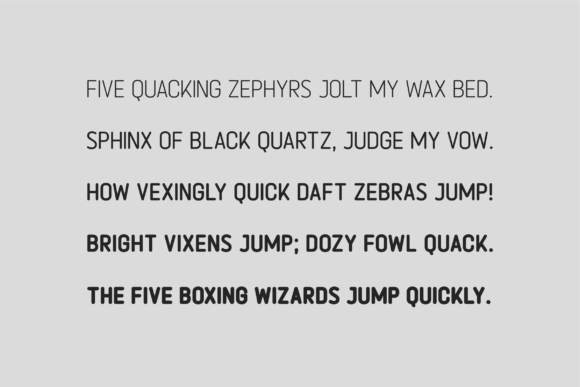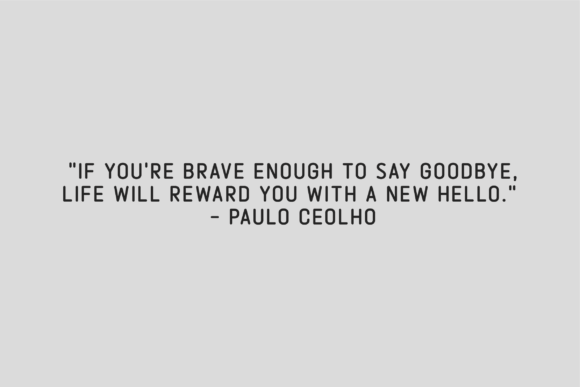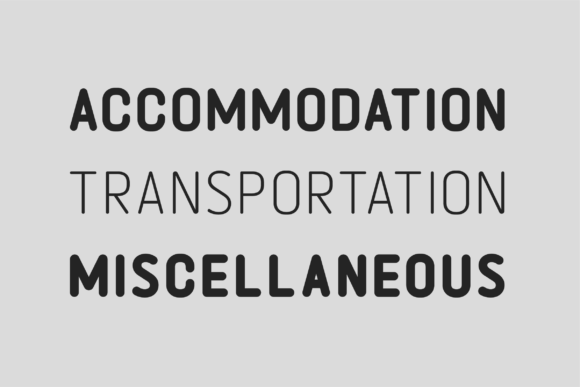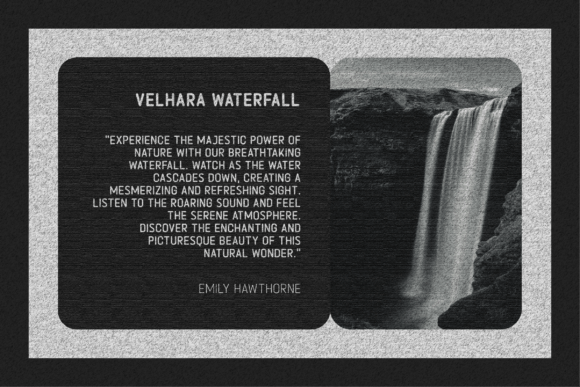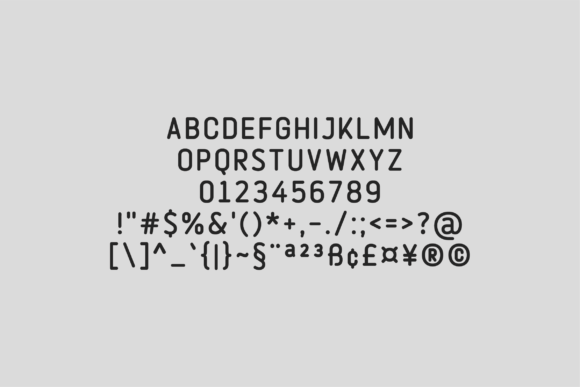
Introduction to Shelution Rounded Font
Have you ever stared at a blank canvas, trying to bring your creative vision to life? The blank page can be intimidating, but what if you had the perfect tool to give your project the boost it needs? For designers, finding the right font can make all the difference between a mediocre and a breathtaking design. That’s where Shelution Rounded Font comes in – an exquisite sans serif font that’s about to revolutionize your creative project.
With its perfect balance of sophistication and simplicity, Shelution Rounded Font is the ultimate design resource for any project. Whether you’re working on a high-quality magazine, a logo, or a film poster, this font is sure to elevate your design to new heights. And the best part? It’s available for a free download, allowing you to experiment with it and see the magic happen. So why settle for an ordinary font when you can have a Shelution Rounded Font with a transparent background that adds an extra layer of depth to your design?
Key Features of Shelution Rounded Font
- High-quality design resource for creative projects, ideal for logos, typography, and branding.
- Unique rounded design with a transparent background, allowing for easy customization and layering.
- Perfect for designers and artists looking for a modern, sleek, and sophisticated font to elevate their creative project.
- Can be used as a standalone font or combined with other design elements to create a visually appealing design resource.
Honest Review: Shelution Rounded Font
I recently had the chance to work with the Shelution Rounded Font on a creative project, and I must say it’s a great addition to any designer’s toolbox. This free download offers a high quality design resource that can elevate your work to the next level.
- ✨ The font’s rounded edges give it a soft, approachable feel that’s perfect for modern designs.
- ✨ The transparent background makes it easy to layer with other elements in your design.
- ✨ The font’s versatility allows it to work well in a variety of creative applications, from branding to digital products.
- ⚠️ The font’s rounded edges can make it difficult to read at small font sizes.
- ⚠️ The font’s limited character set may not be suitable for projects that require a wide range of special characters.
Overall, I’m impressed with the Shelution Rounded Font’s potential as a design resource. With a little creativity, it can be a valuable addition to your toolkit. Just be mindful of its limitations, and you’ll be well on your way to creating stunning designs with this free download.
Tips for Getting the Most Out of Shelution Rounded Font
To get the most out of Shelution Rounded Font, experiment with different font sizes, colors, and combinations to create unique and eye-catching designs.
Common Use Cases for Shelution Rounded Font
Shelution Rounded Font is perfect for logos, text overlays, and headings in your design. It’s also great for creating a consistent brand identity across your marketing materials.